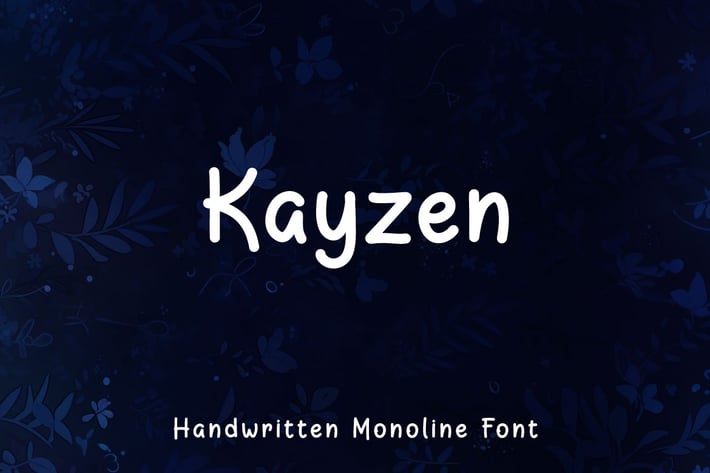
Kayzen - Handwritten Monoline Font
Hello! Kayzen is a small monoline handwritten font.
Kayzen can be used in any works such as comic book, poster, school, flyer, book title, advertisement, social media content, logo and many more.